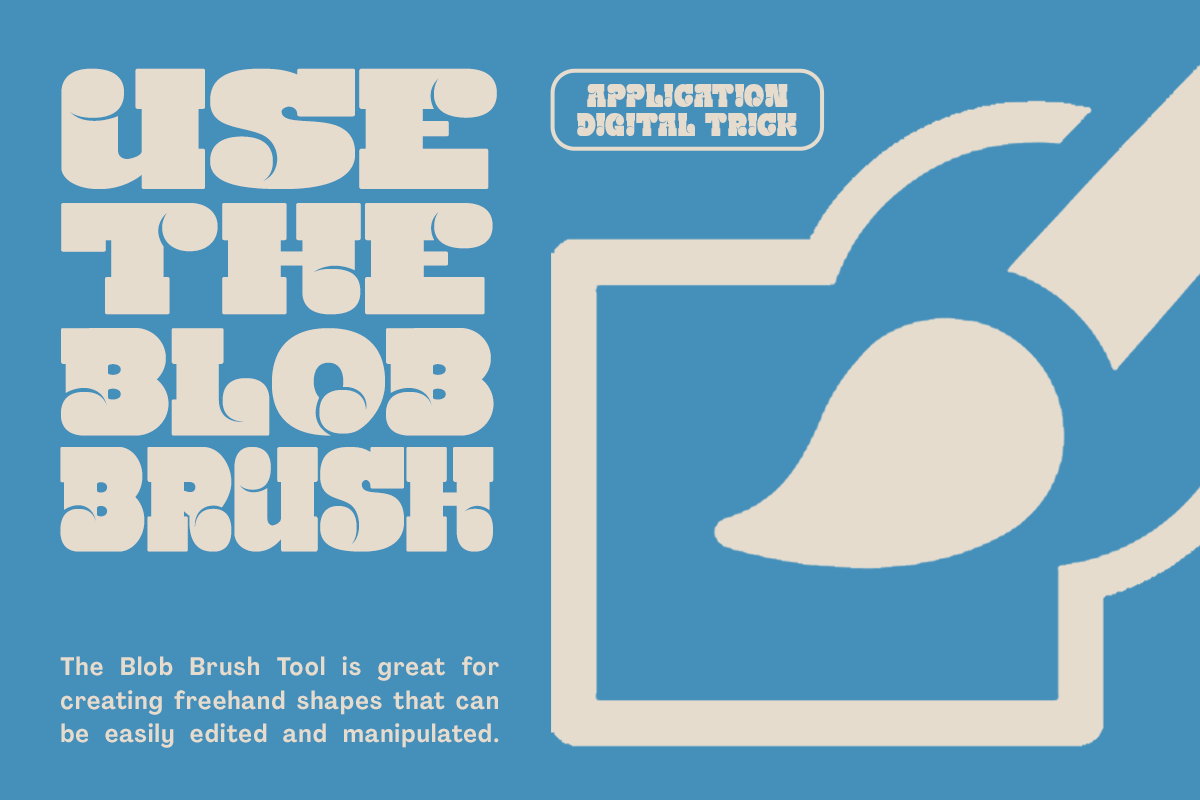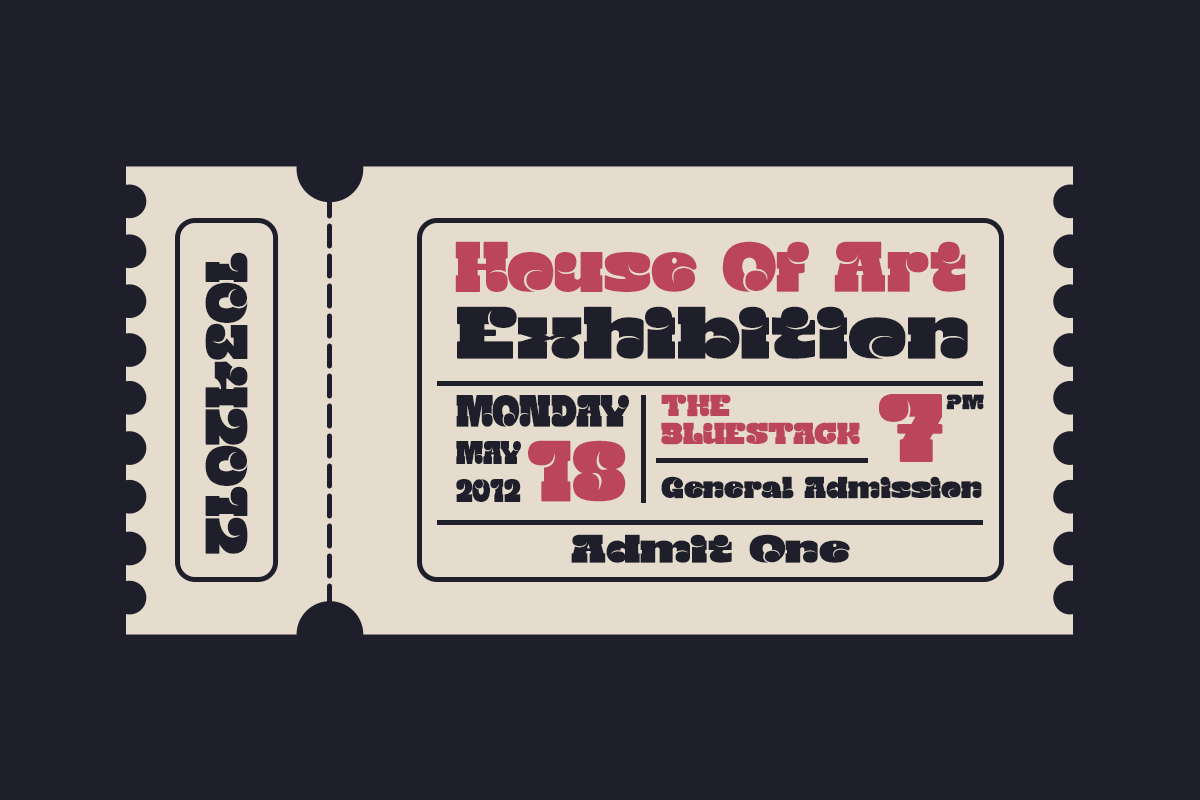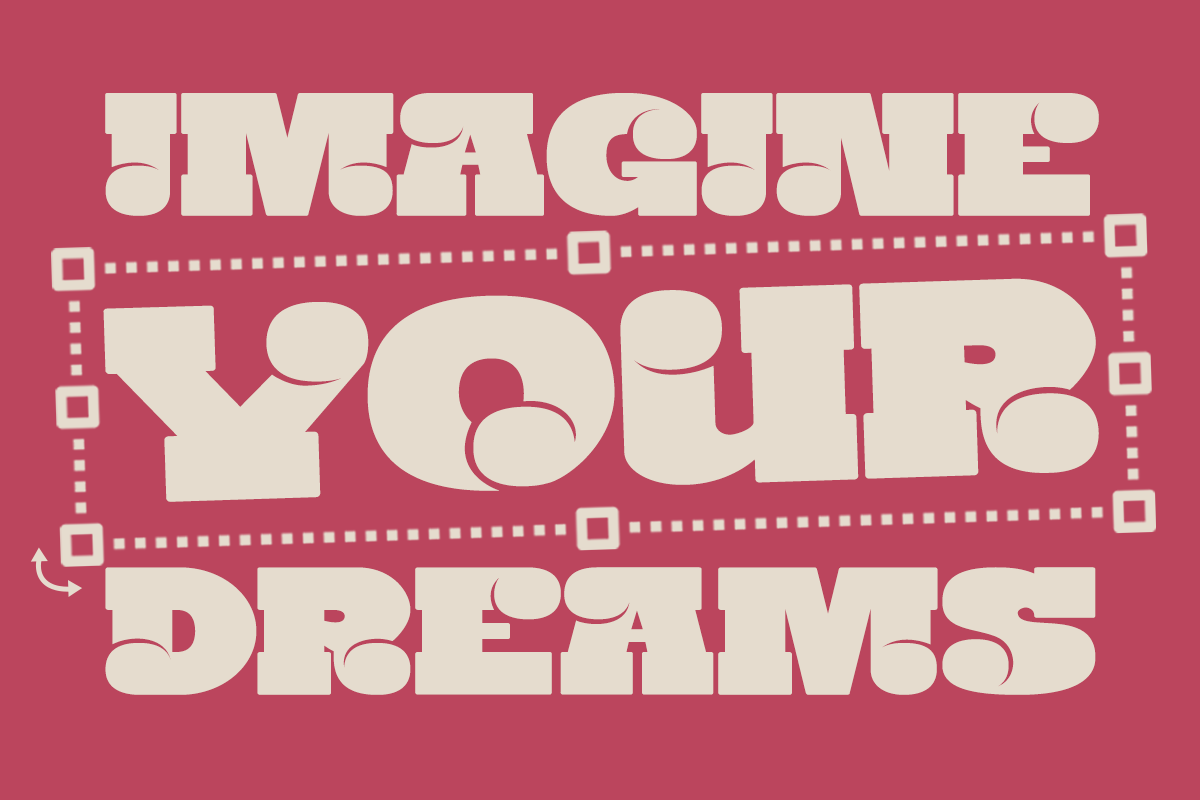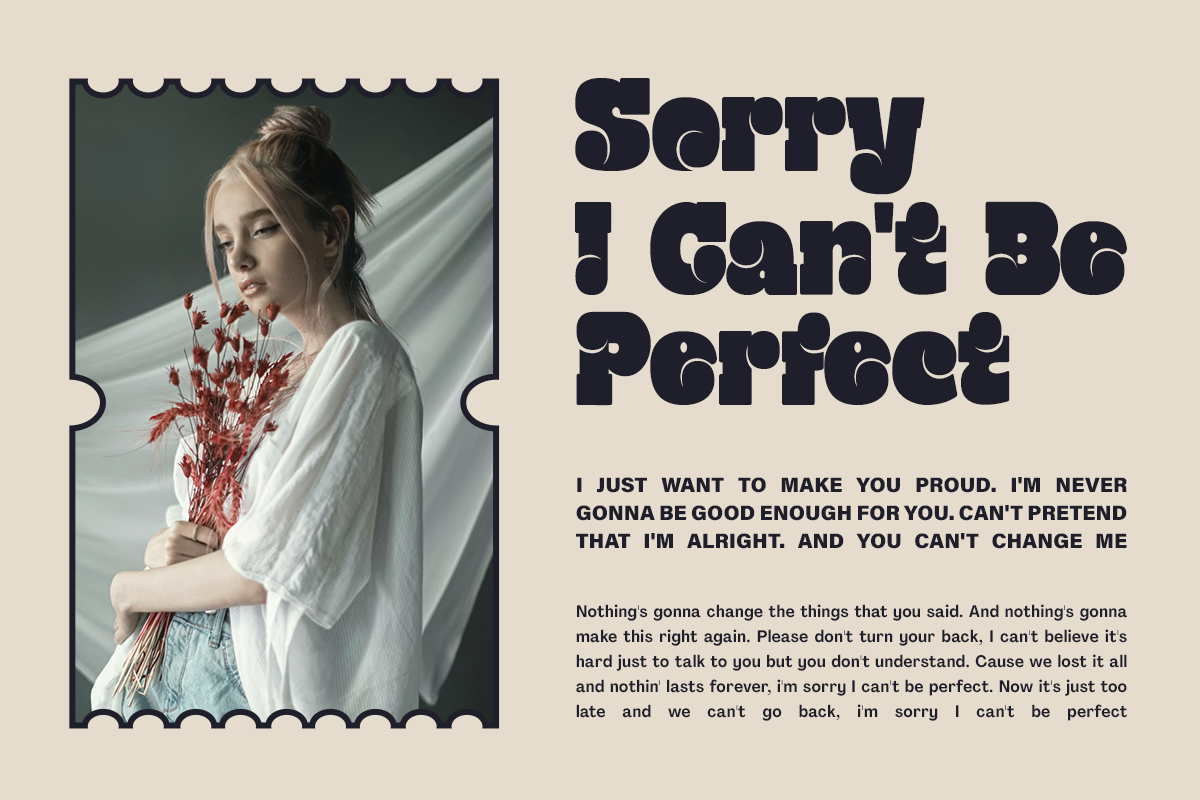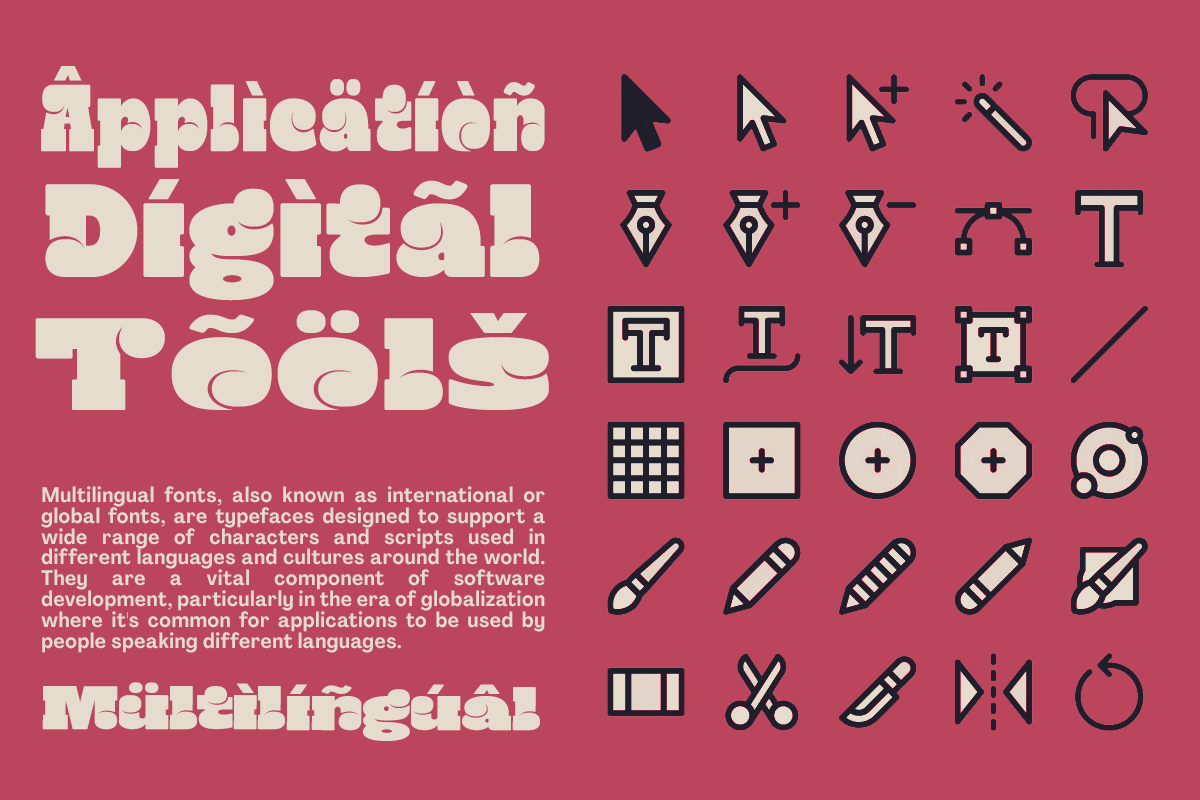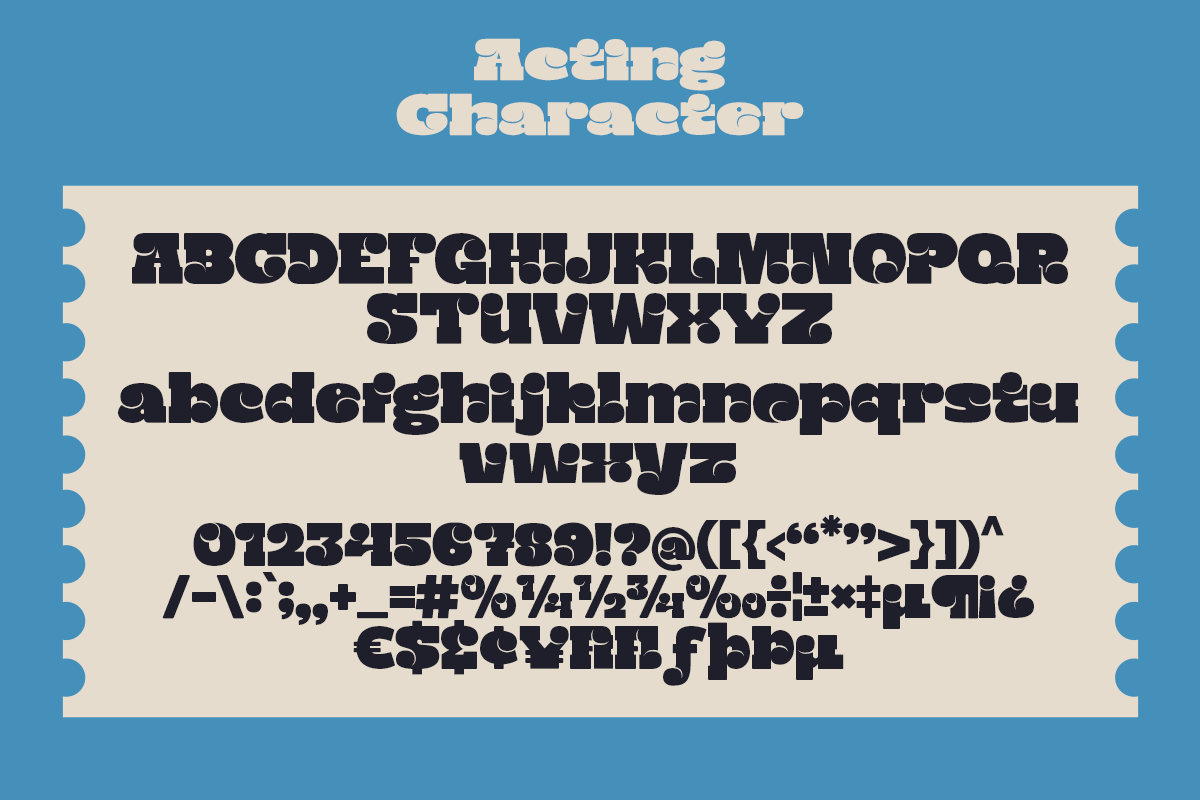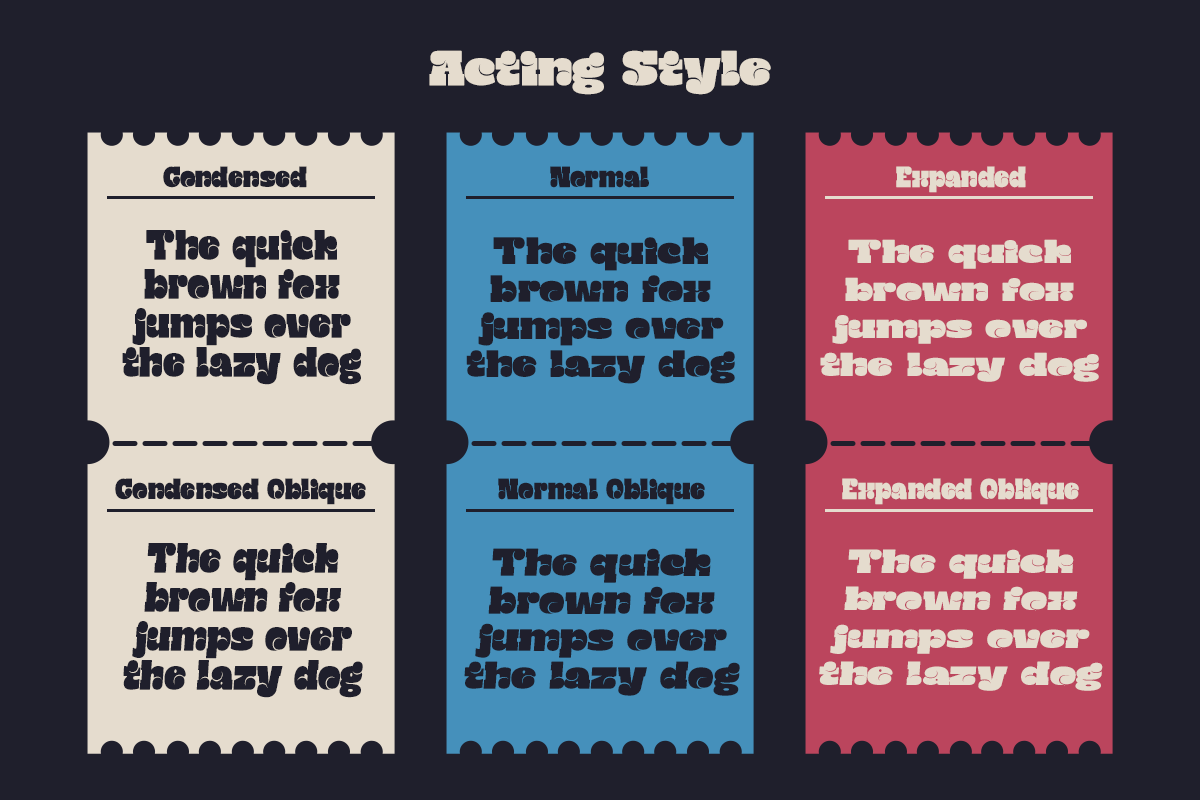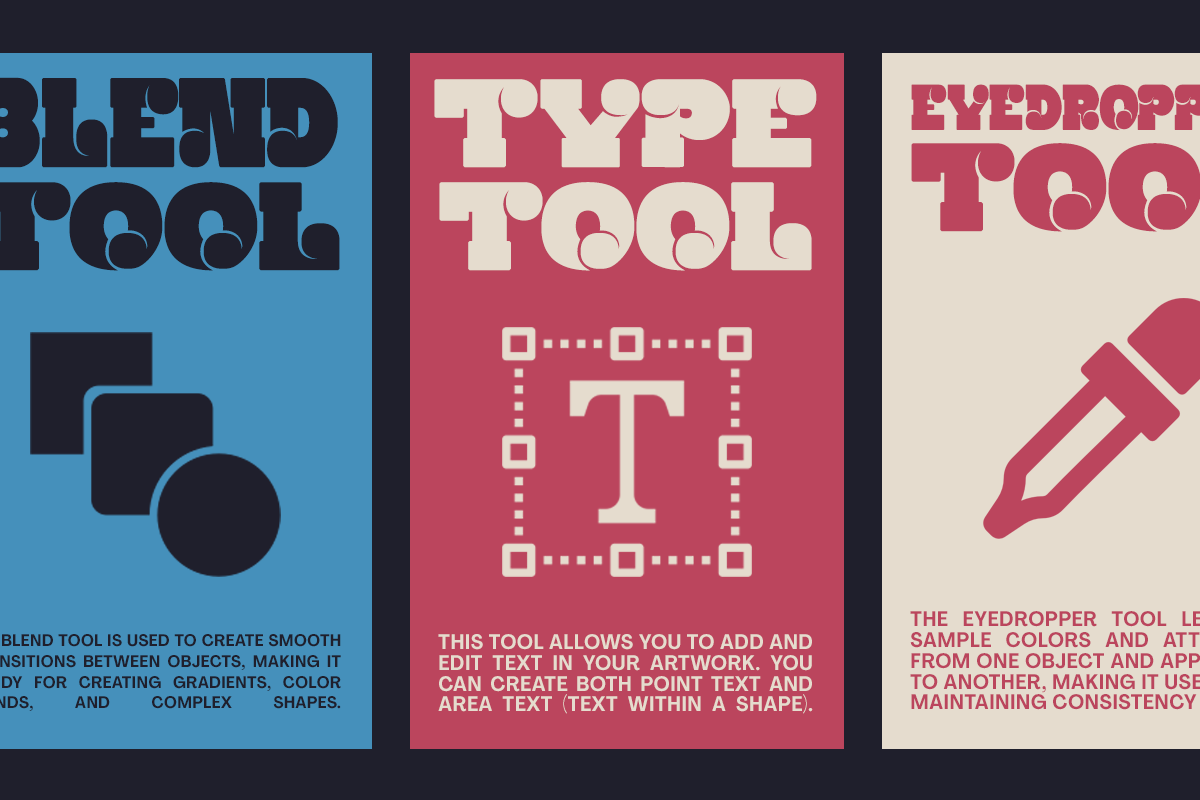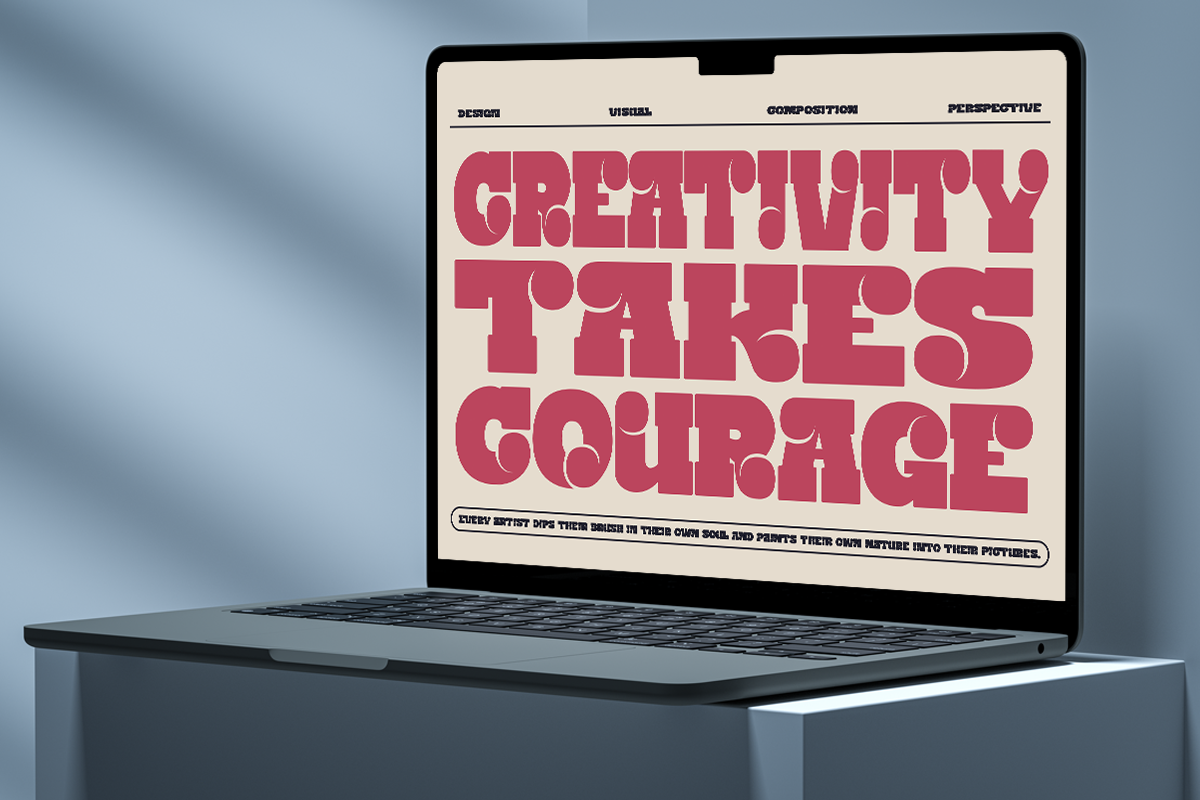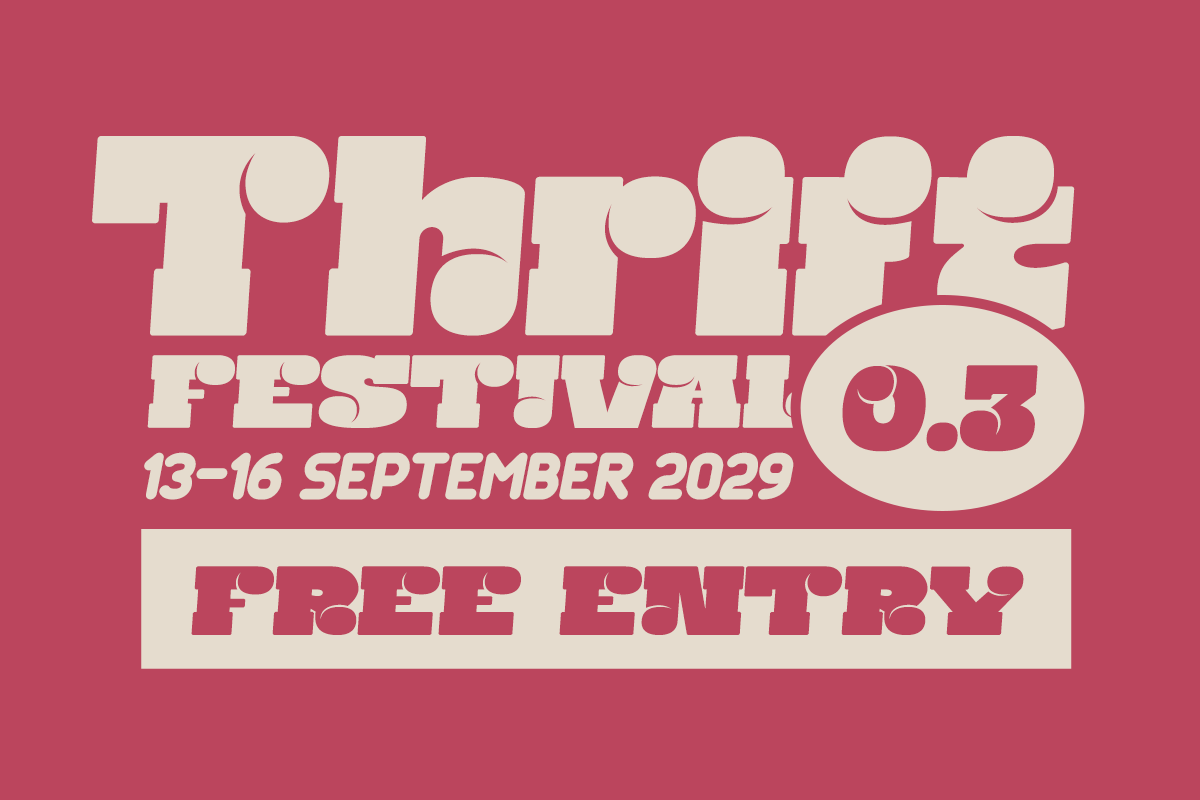
Acting - Slab Rounded Family
Introducing Acting! A robust slab typeface that effortlessly combines nostalgia with contemporary boldness.
What sets Acting apart is its distinctive circular elements within each letter, adding a unique touch while maintaining clean and balanced shapes. With alternative glyphs, it truly comes to life.
Acting offers versatility with three widths: Condensed, Normal, and Expanded, along with a oblique version, resulting in a total of six styles. Whether you're working on branding, titles, or headlines, Acting is your perfect choice for your project!
Unique Letterforms
Multilingual Supports: (Afrikaans, Albanian, Catalan, Croatian, Czech, Danish, Dutch, English, Estonian, Finnish, French, German, Hungarian, Icelandic, Italian, Lithuanian, Maltese, Norwegian, Polish, Portuguese, Slovenian, Spanish, Swedish, Turkish, Zulu)